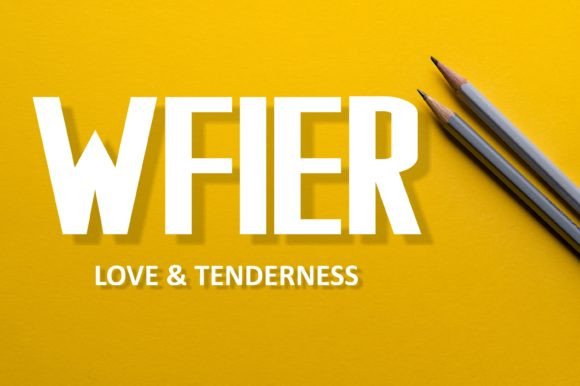
Prepare yourself to be mesmerized by Wfier, a display font that dances off the page with playful energy, bringing life to your creative endeavors. Its charming, slightly curved characters burst with personality, making it the perfect choice for any design seeking a touch of whimsy and fun.
Immerse yourself in the world of Wfier, where creativity knows no bounds. Picture your designs adorned with this delightful font, captivating the hearts of your audience with its enchanting aura. Its playful nature lends itself seamlessly to baby logos, adding an element of joy and wonder to your brand identity.
With Wfier, you hold the key to unlocking a world of possibilities. Imagine crafting captivating posters that ignite the imagination, greeting cards that warm the soul, and product labels that entice customers with their playful charm. It's the perfect font to add a dash of magic to your branding, packaging, or any other creative project.
As you explore the depths of Wfier, prepare to be captivated by its versatility. Its unique letterforms dance across the page, working in perfect harmony to create a visual symphony. Each character exudes a sense of playfulness, inviting your audience to embark on an enchanting journey through your designs.
Wfier is more than just a font; it's an invitation to let your creativity run wild. Embrace its playful spirit and watch as your designs transform into captivating expressions of joy and wonder. With Wfier, every project becomes a blank canvas waiting to be painted with the colors of your imagination.
Don't miss this opportunity to add Wfier to your font collection - a font destined to become your go-to choice for injecting life and personality into your creative projects. Let Wfier's playful energy ignite your imagination and elevate your designs to new heights of creativity.